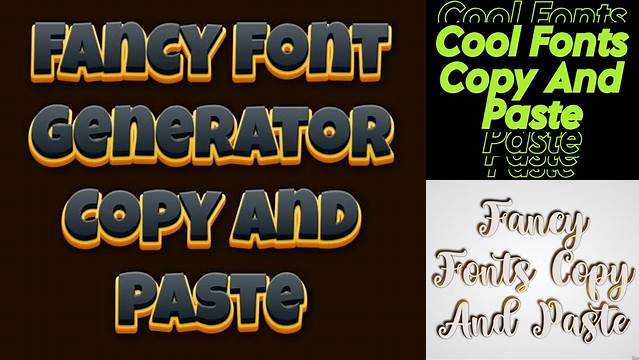
Cool Fancy Fonts: Copy & Paste Text Now!
Hey guys! Ever wanted to make your social media posts, texts, or documents stand out? Well, you've come to the right place! This guide is all about cool fancy fonts that you can copy and paste to give your text a unique twist. Forget boring, default fonts – we're diving into a world of stylish letters and creative typography that's just a copy-paste away. Get ready to level up your text game!
1. What are Cool Fancy Fonts?
Let's start with the basics. What exactly are these cool fancy fonts we're talking about? They're not your typical Arial or Times New Roman. These are stylistic variations of letters, often created using Unicode characters, symbols, and creative designs. Cool fancy fonts can range from elegant scripts to bold, blocky letters, and even playful, whimsical styles. The beauty of these fonts is that you don't need any special software or design skills to use them. Simply find a font you love, copy it, and paste it wherever you need it. This makes them super accessible for everyone, whether you're sprucing up your Instagram bio or adding flair to a presentation. Imagine the possibilities – your text can now reflect your personality and style effortlessly! Using cool fancy fonts is a fantastic way to add a touch of creativity to your digital presence. The availability of different styles ensures that you can find something that fits your specific aesthetic. The key benefit here is the ease of use: no complex installations or software needed. Just copy, paste, and you're done!
2. Where to Find Cool Fancy Fonts for Copy and Paste
So, where do you find these magical fonts? The internet is brimming with websites and tools dedicated to generating cool fancy fonts. Many of these platforms offer a simple interface where you type your text, and they instantly convert it into various stylish fonts. You can then easily copy the text in your preferred font and paste it into your social media profiles, messaging apps, documents, or wherever you want to use it. Some popular websites include LingoJam, CoolSymbol, and YayText, but there are countless others out there. Explore different options to find the websites that offer the best variety and styles. Each platform might have its own unique set of fonts and features, so it’s worth trying a few to see what works best for you. Remember to bookmark your favorite sites for easy access in the future! The best part about these font generators is that they are usually free and very straightforward to use. This makes experimenting with different fonts a breeze, allowing you to enhance your online presence with minimal effort. Start exploring these resources today and discover the perfect fonts to elevate your text!
3. How to Use Cool Fancy Fonts on Social Media
Social media is where cool fancy fonts truly shine. Think about it – your profile bio, captions, and comments are prime real estate for showcasing your unique style. Using a fancy font can instantly make your posts more eye-catching and memorable. Imagine scrolling through a feed and seeing a caption that pops with a stylish script or a bold, attention-grabbing font. It's definitely going to make you stop and take notice! Platforms like Instagram, Twitter, Facebook, and TikTok don't natively offer a wide range of font options, so copy-pasting fancy fonts is the perfect workaround. To use these fonts, simply generate your text on a font generator website, copy the stylized text, and paste it into your social media post or bio. Make sure to choose a font that's legible and fits the overall tone of your content. While it's fun to experiment, readability is key! Don't overdo it, though; using too many different fonts in one post can look cluttered and unprofessional. A subtle touch of fancy font can go a long way in making your content stand out without being overwhelming. Ultimately, the goal is to capture attention and communicate your message effectively, so choose fonts that enhance rather than distract from your content.
4. Cool Cursive Fonts for Copy and Paste
Ah, cursive fonts! There's something so elegant and timeless about a beautiful cursive script. These fonts are perfect for adding a touch of sophistication to your text. Whether you're crafting a heartfelt message, designing a stylish invitation, or simply want to make your social media bio look a bit more refined, cool cursive fonts are a fantastic choice. The flowing lines and graceful curves of cursive fonts evoke a sense of artistry and charm, making your words feel more personal and special. Finding cursive fonts to copy and paste is easy with the online font generators we mentioned earlier. Just type your text, select a cursive style, and copy away! When using cursive fonts, it's important to consider readability. While they look gorgeous, some cursive fonts can be a bit tricky to read if they're too ornate or the letters are too close together. Opt for styles that strike a balance between elegance and clarity. Using cursive fonts sparingly can also maximize their impact. A cursive font for a heading or a special phrase can draw the eye and add emphasis without making the entire text difficult to read. Overall, incorporating cursive fonts into your text can inject a touch of class and personality, helping you express yourself in a visually appealing way.
5. Bold Fonts for Copy and Paste
Need to make a statement? Bold fonts are your go-to choice! These fonts command attention and add emphasis to your text. Whether you're highlighting a key point, creating an eye-catching headline, or simply want your message to stand out, bold fonts are incredibly effective. They have a strong visual presence that instantly draws the reader's eye, making them ideal for capturing attention in a world of endless scrolling and information overload. Finding bold fonts that you can copy and paste is just as easy as finding other fancy fonts. Online font generators offer a variety of bold styles, from classic bold to more stylized versions. When using bold fonts, think about the impact you want to make. A well-placed bold phrase can emphasize a crucial message, but too much bold text can feel overwhelming. Use it strategically to highlight the most important parts of your text. Bold fonts are fantastic for headings, subheadings, and calls to action, as they help break up the text and guide the reader's eye. Experiment with different bold styles to find the perfect fit for your message and brand. The power of bold should not be underestimated; it's a simple yet effective way to make your words pack a punch.
6. Stylish Fonts for Copy and Paste
Looking for something that goes beyond the ordinary? Stylish fonts are where you'll find the really unique and eye-catching designs. These fonts come in a vast array of styles, from futuristic and geometric to whimsical and hand-drawn. The possibilities are endless when it comes to expressing your creativity with stylish fonts. They're perfect for adding a touch of personality to your social media profiles, invitations, posters, or any other project where you want to make a statement. The beauty of stylish fonts is that they can instantly elevate your text from plain to extraordinary. You can easily copy and paste these fonts using online font generators, just like the other styles we've discussed. However, with stylish fonts, it's even more crucial to consider readability. Some of the more elaborate designs can be harder to read, especially in larger blocks of text. Use stylish fonts sparingly, focusing on headings, titles, or short phrases where their unique character can shine without sacrificing clarity. Think of stylish fonts as the exclamation point of typography – they add flair and emphasis, but moderation is key. Choose fonts that reflect your personal style and the message you want to convey, and you'll be sure to make a lasting impression.
7. Aesthetic Fonts for Copy and Paste
Aesthetic fonts are all about creating a visually pleasing and harmonious look. These fonts often feature unique letterforms, subtle details, and a sense of overall balance and elegance. They're perfect for projects where visual appeal is paramount, such as social media graphics, website headers, and branding materials. Aesthetic fonts aim to capture a particular mood or style, whether it's minimalist, vintage, modern, or something else entirely. They can add a touch of sophistication and refinement to your text, making it stand out in a visually crowded world. Finding aesthetic fonts to copy and paste is easy with the help of online font generators. Many websites offer curated collections of fonts that are specifically designed to be aesthetically pleasing. When using these fonts, consider the overall visual context of your project. Choose fonts that complement the colors, imagery, and other design elements you're using. Aesthetic fonts are most effective when they work together with the other elements to create a cohesive and visually appealing whole. Pay attention to the spacing between letters and lines, as well as the overall size and weight of the font. The goal is to create a font that is not only beautiful but also easy to read and understand. A well-chosen aesthetic font can significantly enhance the visual impact of your text, making it more engaging and memorable.
8. Fancy Text Generators
Fancy text generators are the magic tools that make all of this copy-and-paste font fun possible! These online platforms offer a simple way to transform your ordinary text into a wide variety of stylish fonts and designs. Most generators work in a similar way: you type your text into a box, and the generator instantly displays your text in a range of different fonts below. You can then simply copy the font you like and paste it wherever you need it. These generators are incredibly convenient because they don't require any software downloads or installations. They're also usually free to use, making them accessible to everyone. Some generators offer basic font styles, while others boast a vast library of options, including cursive, bold, stylish, and aesthetic fonts. Many generators also include other fun text effects, such as upside-down text, mirrored text, and text with symbols and emojis. This makes them a versatile tool for all your creative text needs. When choosing a fancy text generator, consider the variety of fonts it offers, the ease of use, and any additional features that might be useful to you. Explore different generators to find the one that best suits your style and preferences. With these tools at your fingertips, you'll be able to create eye-catching text in minutes!
9. Unicode Fonts for Copy and Paste
Unicode fonts are the unsung heroes of the copy-and-paste fancy font world. Unicode is a universal character encoding standard that allows computers to display text consistently, regardless of the language or operating system. This is crucial because many of the fancy fonts you copy and paste aren't actually fonts in the traditional sense. Instead, they're created using special Unicode characters and symbols that mimic the look of different font styles. The advantage of using Unicode fonts is that they're widely supported across different platforms and devices. This means that the fancy text you create should look the same whether it's viewed on a computer, smartphone, or tablet. However, there are some limitations to keep in mind. Because Unicode fonts rely on existing characters and symbols, they might not offer the same level of flexibility and detail as traditional fonts. Some special characters might not display correctly on all devices, so it's always a good idea to test your text to make sure it looks as intended. Despite these limitations, Unicode fonts are a fantastic way to add style to your text without needing to install any custom fonts. They're also a testament to the power of Unicode in enabling cross-platform text compatibility.